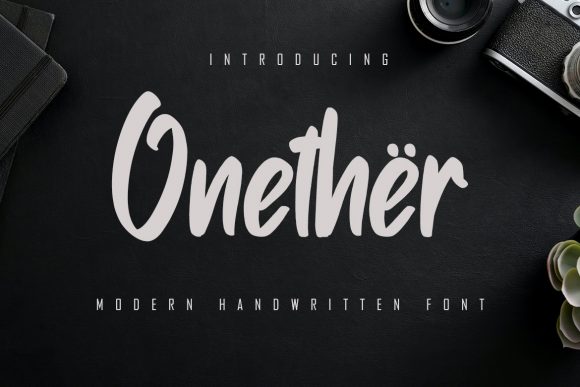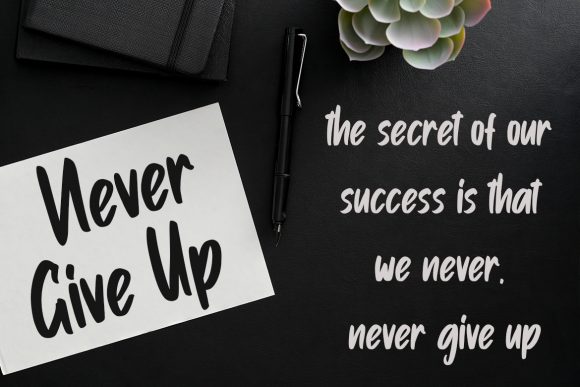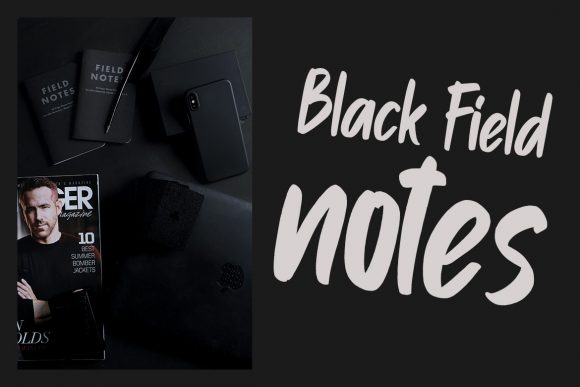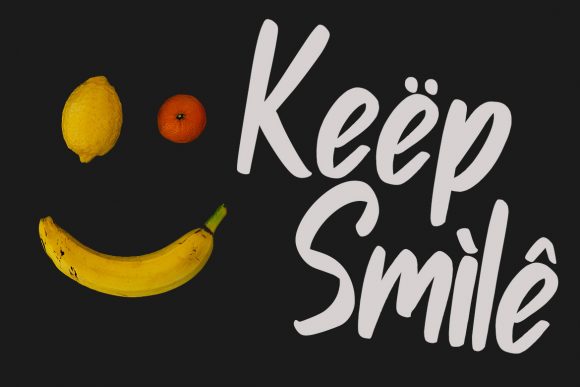
About Onether Font
Onether is an elegant and thick lettered handwritten font that features sweet and delicate swashes. This original look will appeal to a wide range of crafty ideas, from letterheads and titles, to stationery.